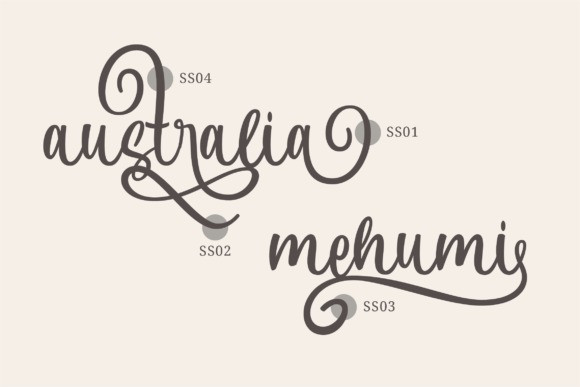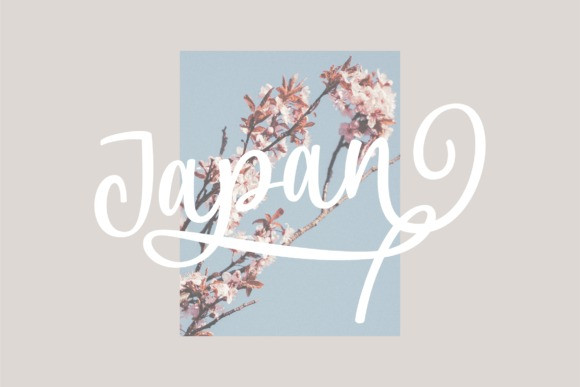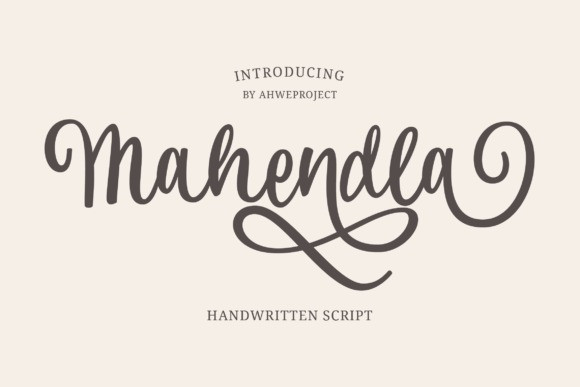
Mahendla Font
Mahendla Script Font is a delicate, elegant, and flowing handwritten font. It has beautiful and well-balanced characters and as a result, it matches a wide pool of designs. Add it to your most creative ideas, and notice how it makes them come alive!
Mahendla is PUA encoded, which means you can access all of the amazing glyphs and ligatures with ease!